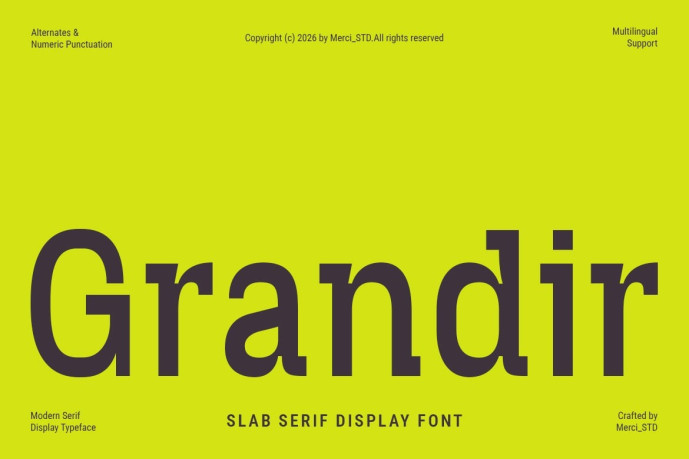
Grandir Font
Designer: merci_std
Grandir Font is a modern slab serif display font featuring strong geometric forms and clean visual balance. Its bold structure makes it suitable for branding, editorial headlines, posters, packaging, signage, corporate presentations, and contemporary design projects. Grandir combines confidence and readability to create impactful typography across various creative applications.